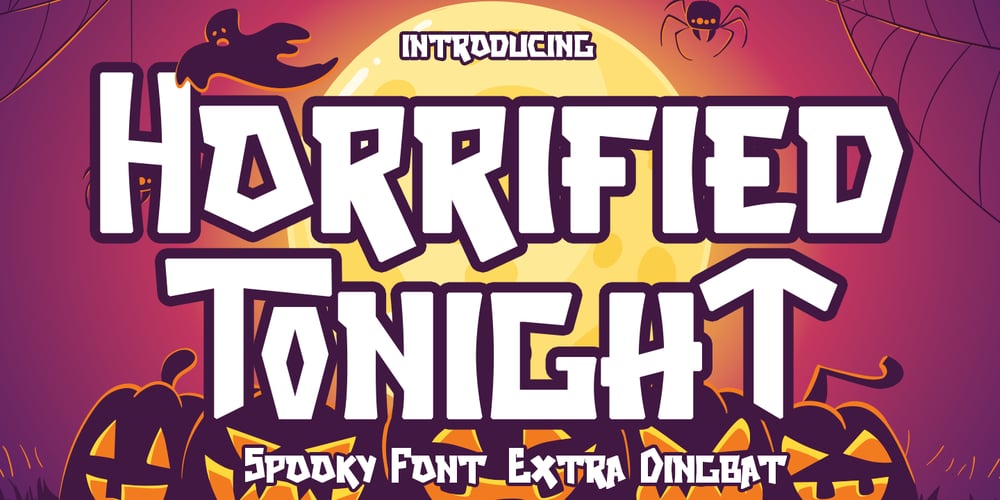
Horrified Tonight Font Family was designed by Asep Rendi and published by Arendxstudio. Horrified Tonight contains 1 styles and family package options. Horrified Tonight – Halloween Font is a display font that is inspired by horror style because its shape is very unique and is perfect for any project that you will use with this theme.Horrified Tonight came with opentype features such stylistic alternates, stylistic sets & ligatures good for logotype, poster, badge, book cover, tshirt design, packaging and any more.Features :1.Uppercase & Lowercase 2.Multilingual support 3.Number 4.Symbol 5.Punctuation6.Extra Dingbat 7.Support in Mac and Windows OS -Support in design application (photoshop, illustrator, and more)